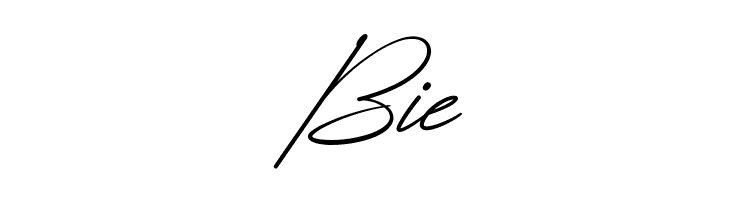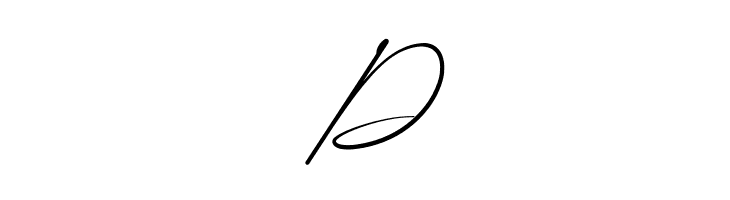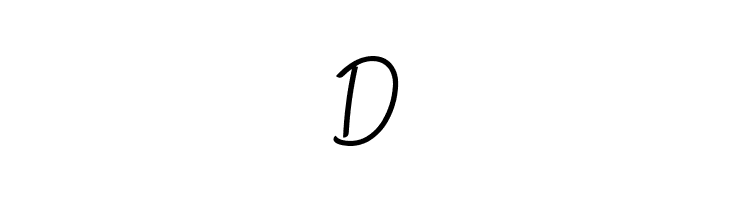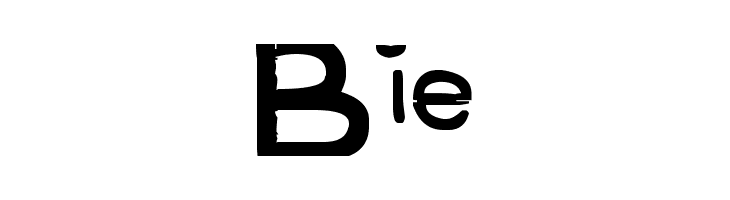
A graceful script font with fluid, connected letters and a handwritten style.
A playful, handwritten font with a whimsical and friendly style.
A whimsical, decorative font with intricate, vine-like embellishments.
A bold, distressed font with a vintage woodcut style.
A whimsical and artistic font with elongated, narrow characters and decorative loops.
A charming calligraphic font with elegant, flowing cursive letterforms.
A dynamic handwritten font with elegant, flowing cursive strokes.